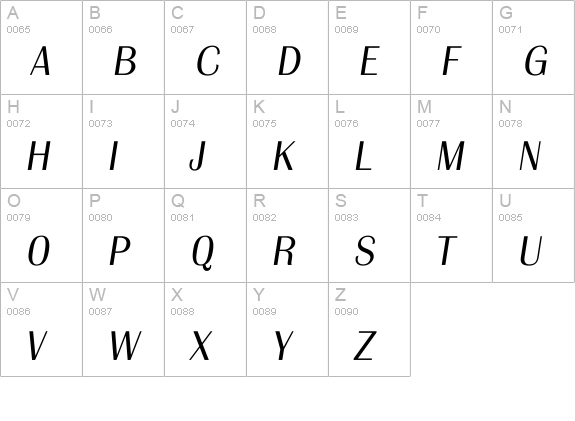
Igrenoble Light is a refined, elegant variant in the Igrenoble typeface family \xE2\x80\x94 well suited to elegant body text, refined sub-headings, and luxury branding.
Introducing Igrenoble Light, a stunning font that effortlessly combines elegance with modernity. This font is the epitome of sophistication, making it the perfect choice for any design project that aims to convey a sense of refinement and style. Its clean lines and slender strokes create a graceful appearance that captivates the eye. Igrenoble Light is not only visually appealing, but also incredibly versatile. Whether you're designing a logo, branding materials, invitations, or even a website, this font will elevate your work to new heights. Its timeless appeal ensures that it will remain a classic choice for years to come. And the best part? Igrenoble Light is absolutely free! You can easily download it at FontsMarket.com, a trusted platform for high-quality fonts. This means that you can enhance your design projects with this exceptional font without breaking the bank. So why wait? Embrace the elegance of Igrenoble Light and let it bring a touch of sophistication to your designs. Download it for free at FontsMarket.com and unlock a world of possibilities for your creative endeavors.